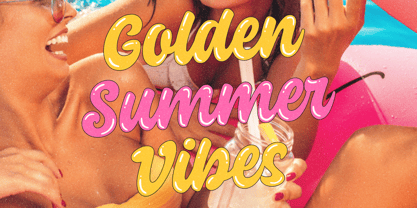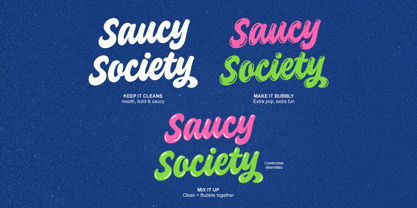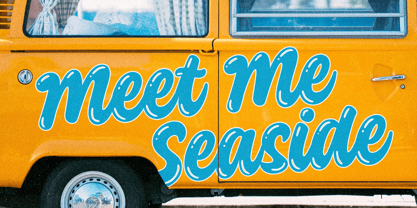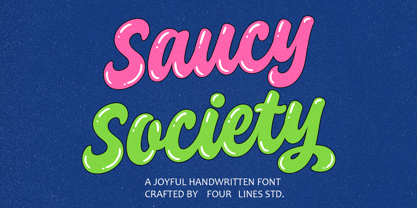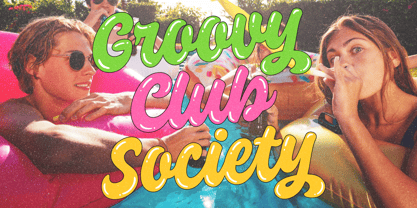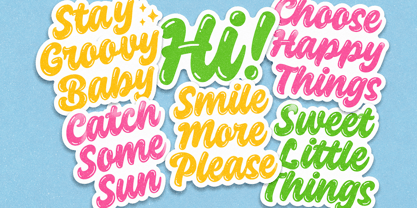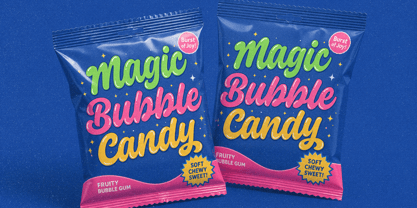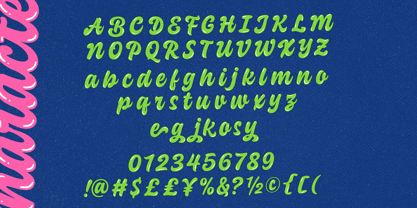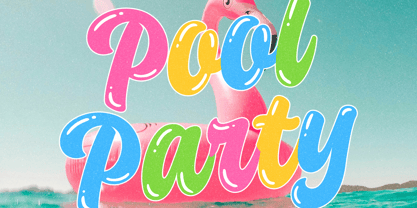
Saucy Society Bubble
Die Schriftfamilie Saucy Society Bubble wurde von Zain Fahroni entworfen und von Four Lines Std veröffentlicht. Saucy Society Bubble enthält 2 Stile und Familienpaketoptionen. Mehr über diese Familie
Meet Saucy Society, a joyful handwritten font filled with playful curves, bold strokes, and expressive character.
Saucy Society comes in two complementary styles: Clean & Bubble. Use the Clean version for a smooth and bold look, switch to Bubble for an extra playful touch, or mix them together to create lettering that feels even more lively and expressive. Lowercase alternates are also included, giving you more ways to play around with words and headlines.
Perfect for branding, product packaging, posters, stickers, merchandise, social media, and all kinds of display typography that could use a little more fun and personality.